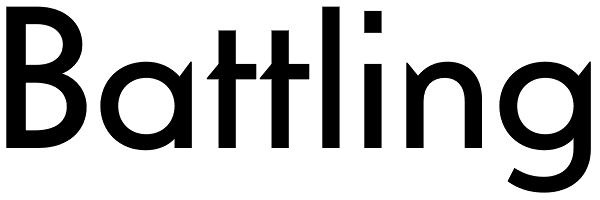
Battling
Battling is a geometric sans serif inspired by the ‘Universelles’ types, distributed by the Dutreix typefoundry, in Limoges, in the 1930s. They were probably designed to challenge the ‘Europe’ (French name of Paul Renner’s Futura) in the field of...